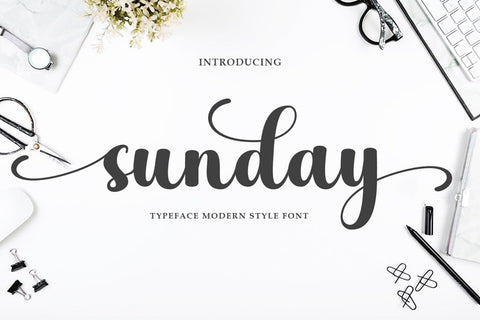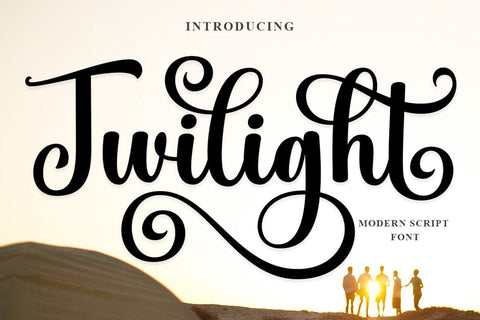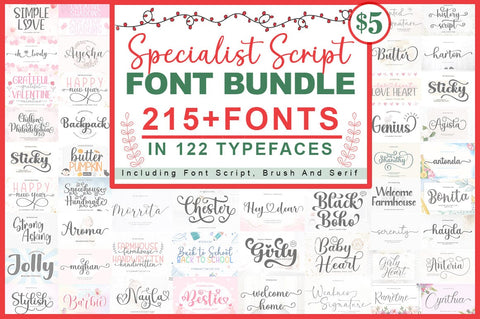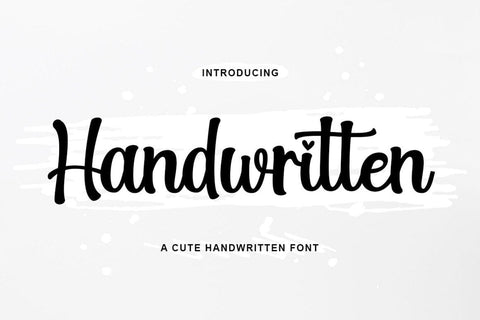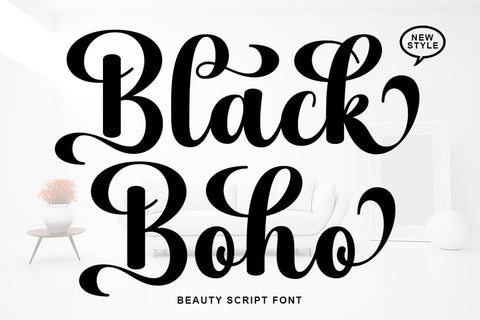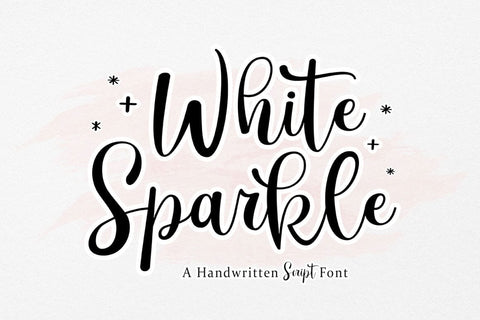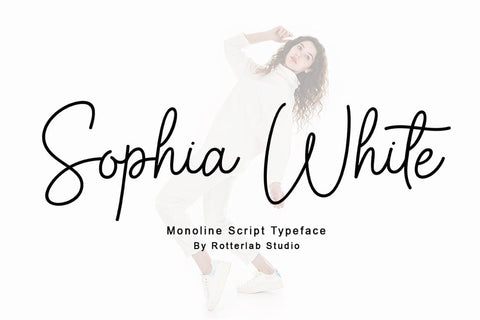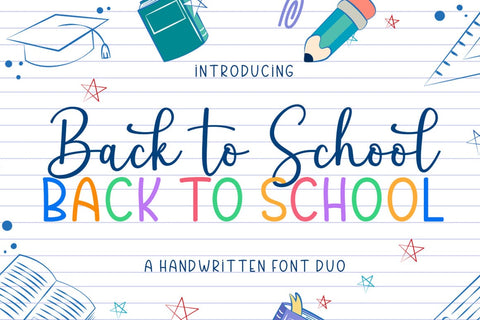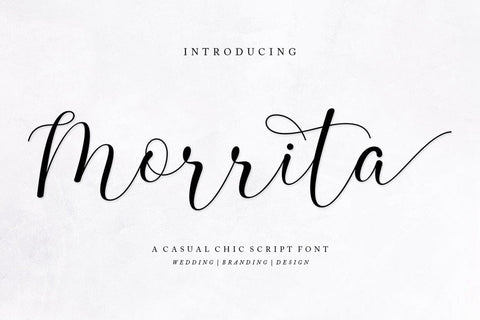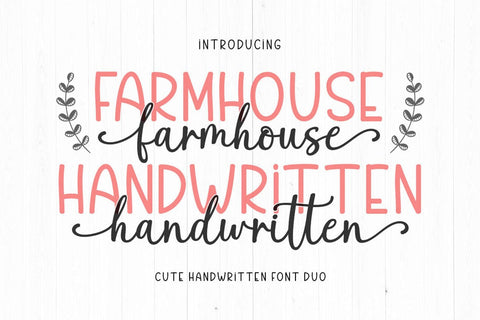
Specialist Script Font Bundle
INTRODUCING
This bundle contains 215 fonts packed into 122 typefaces. This font bundle includes a wide variety of font styles such as, calligraphy, signature, look, sans serif, script, brush lettering, layered, fun, look, vintage and lettering and many more. Many have alternatives, binders, and sweeps.
This font is ideal for branding and decorating your projects. This font is perfect for your wedding invitations or blogs. With the help of this font, you can also create a beautiful logo or frame for your home. Or just use it for book covers, stationery, marketing, magazines, and more.